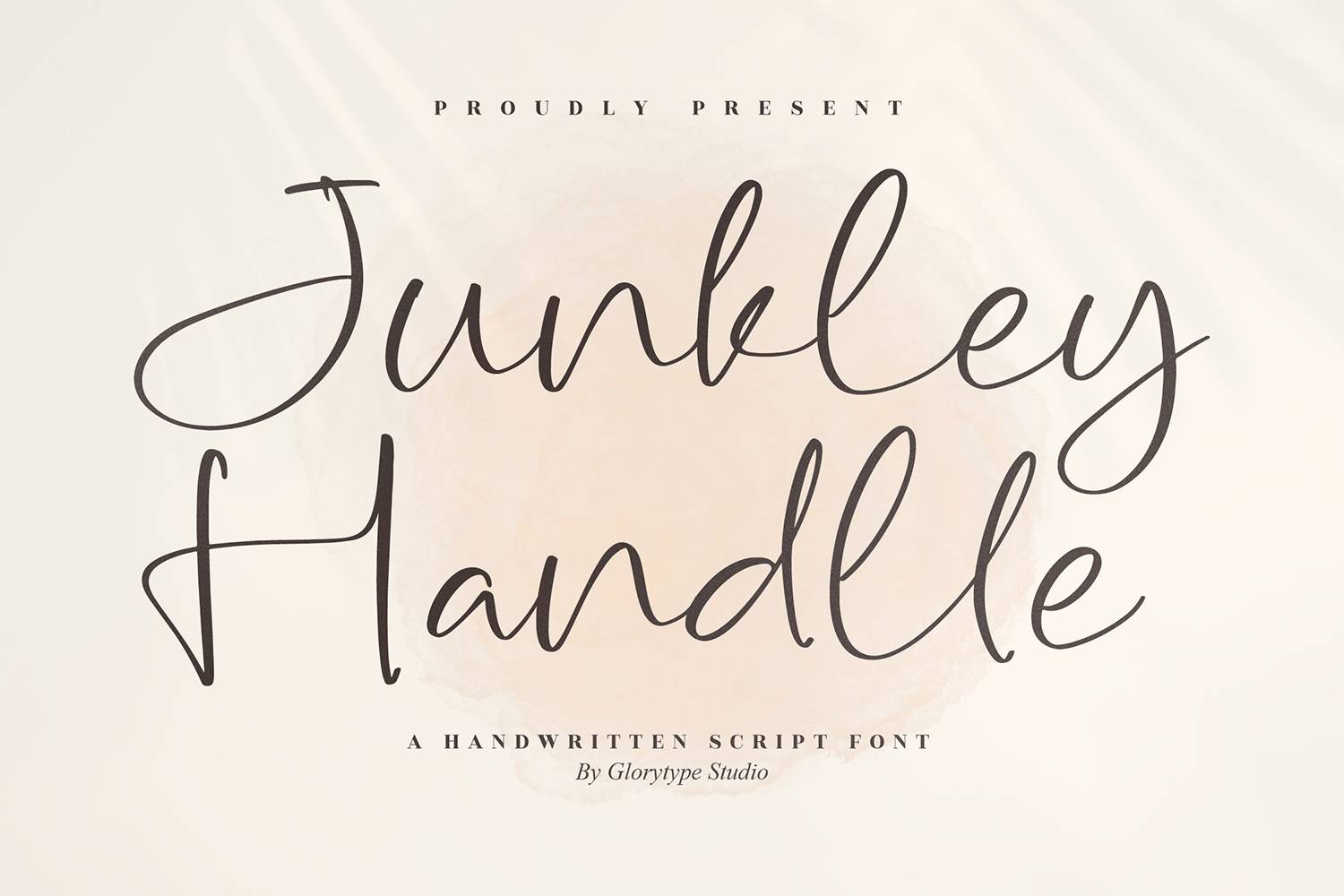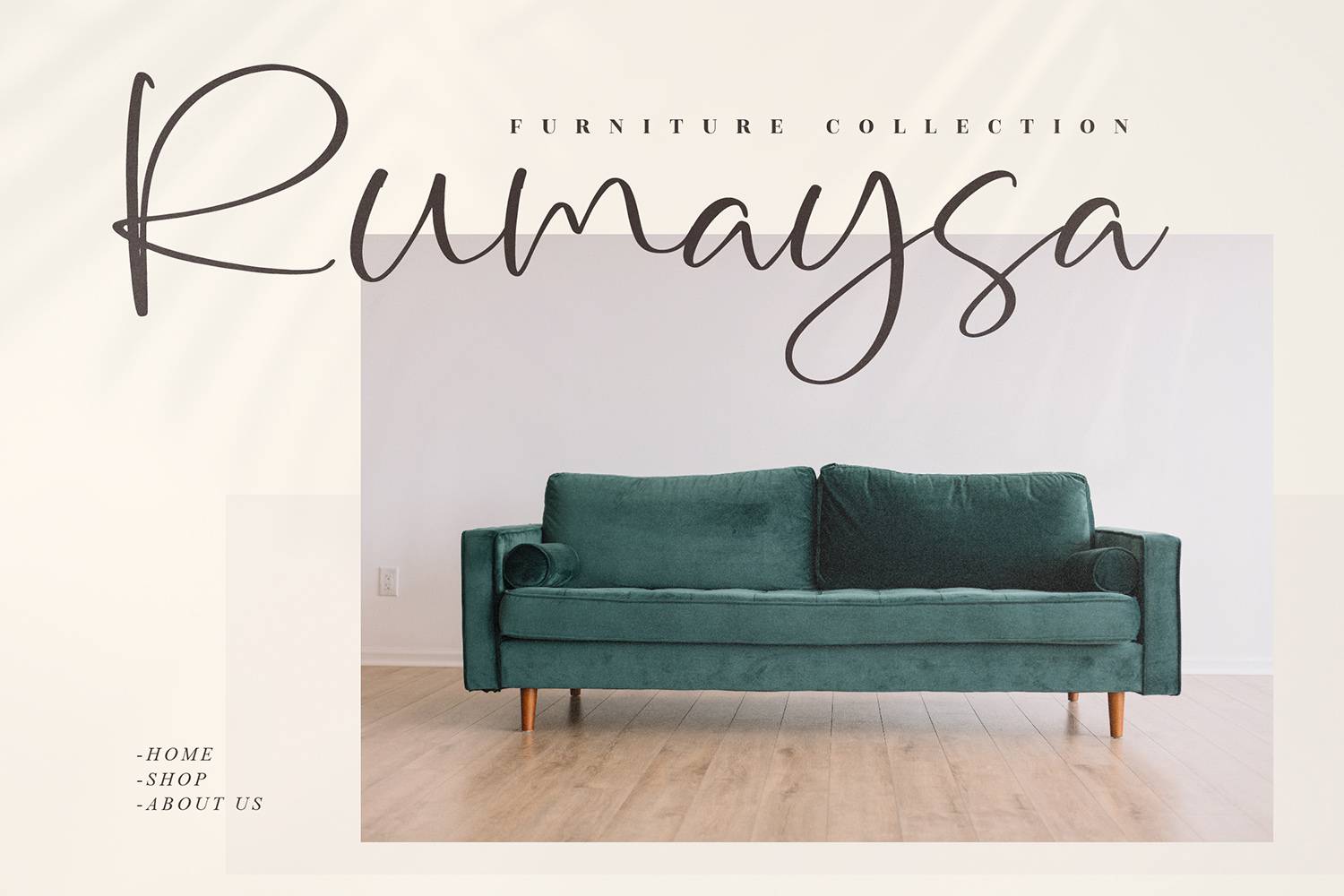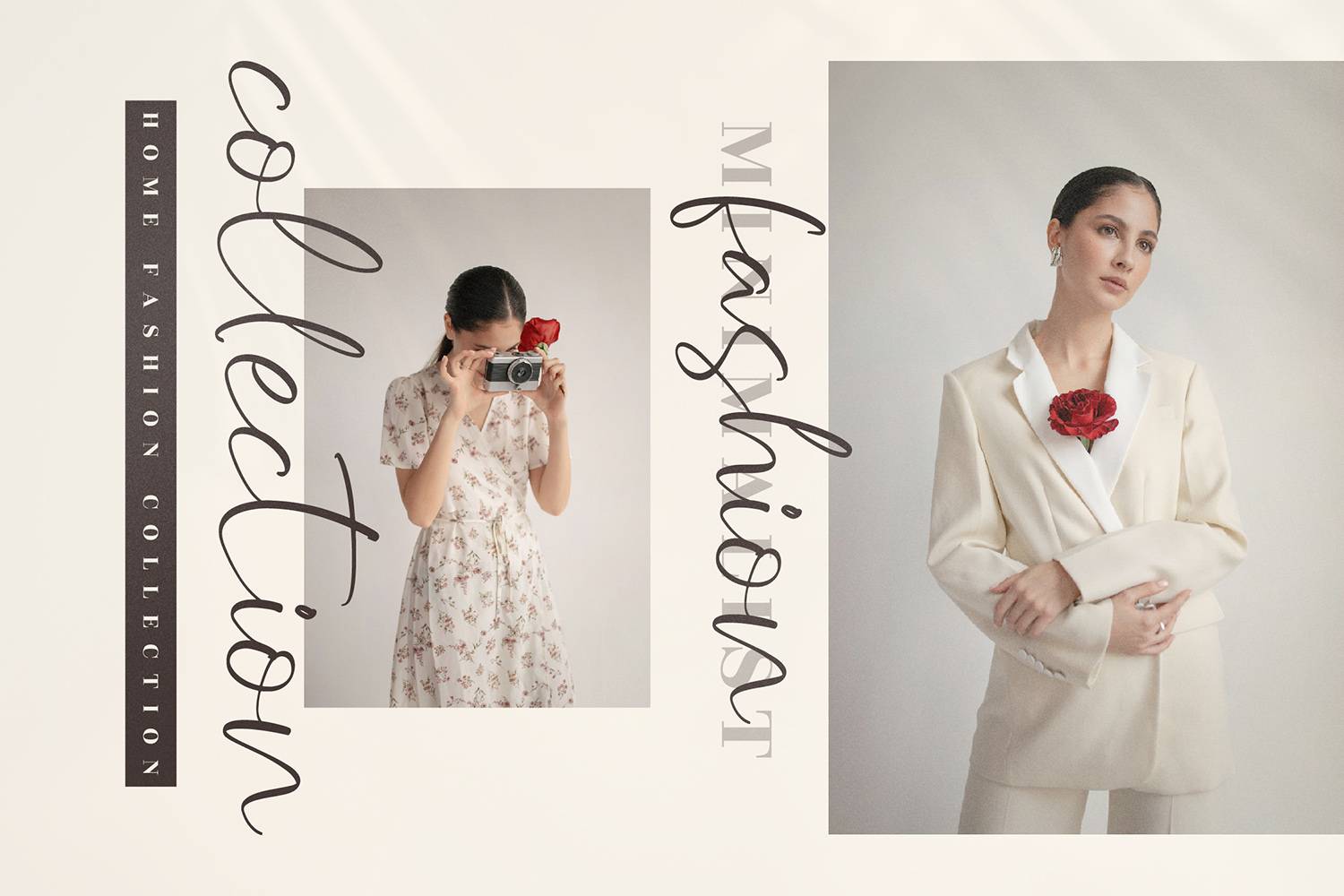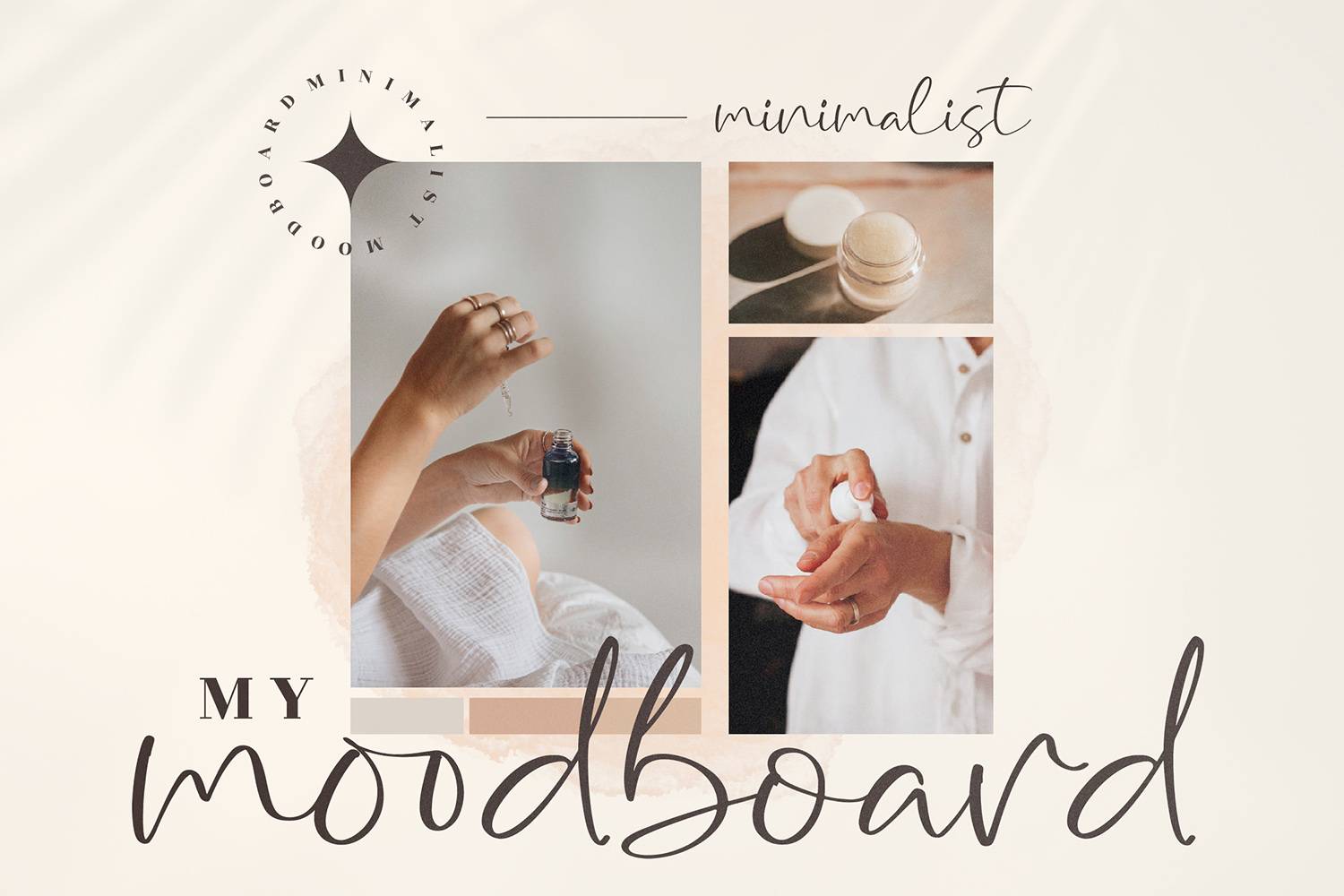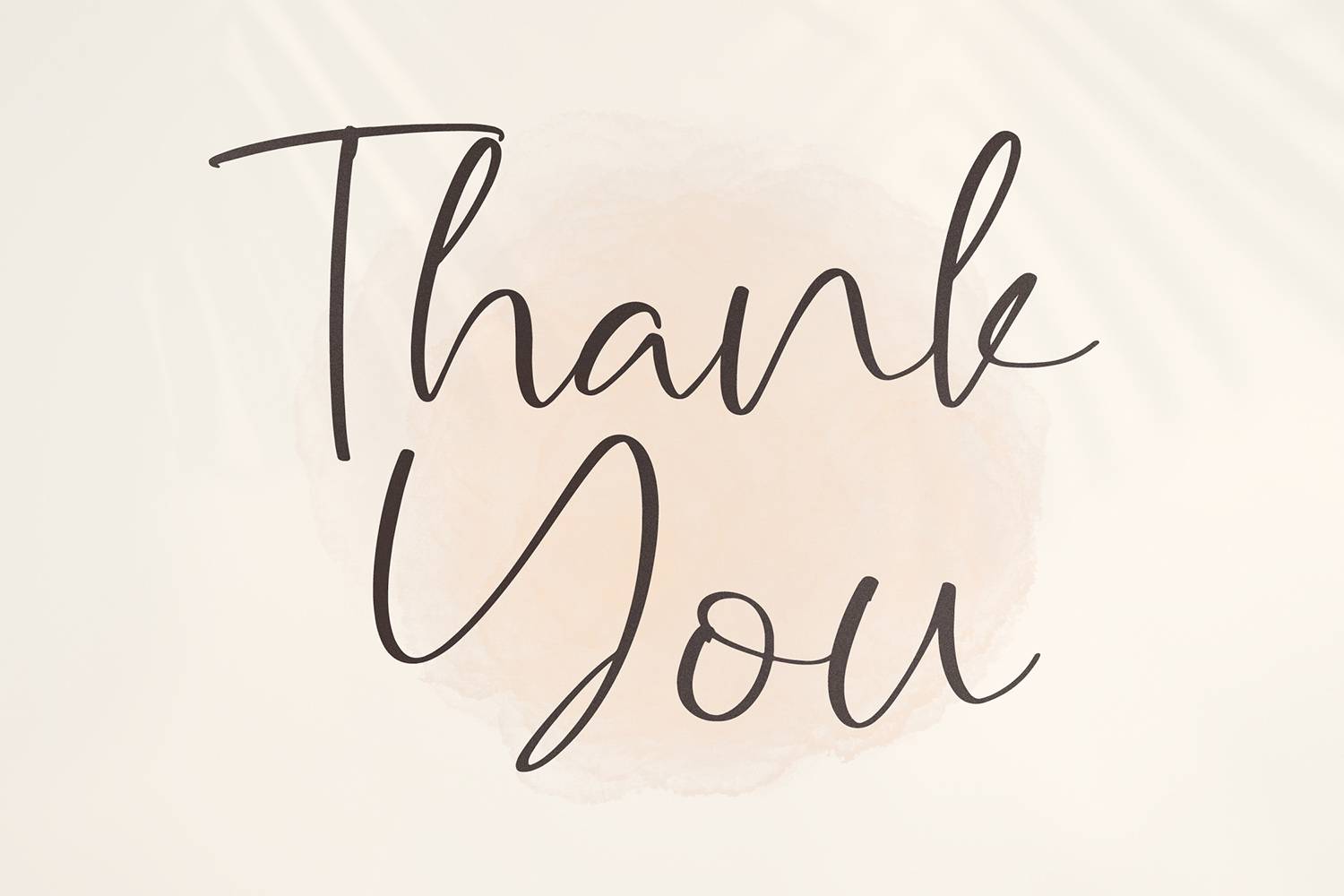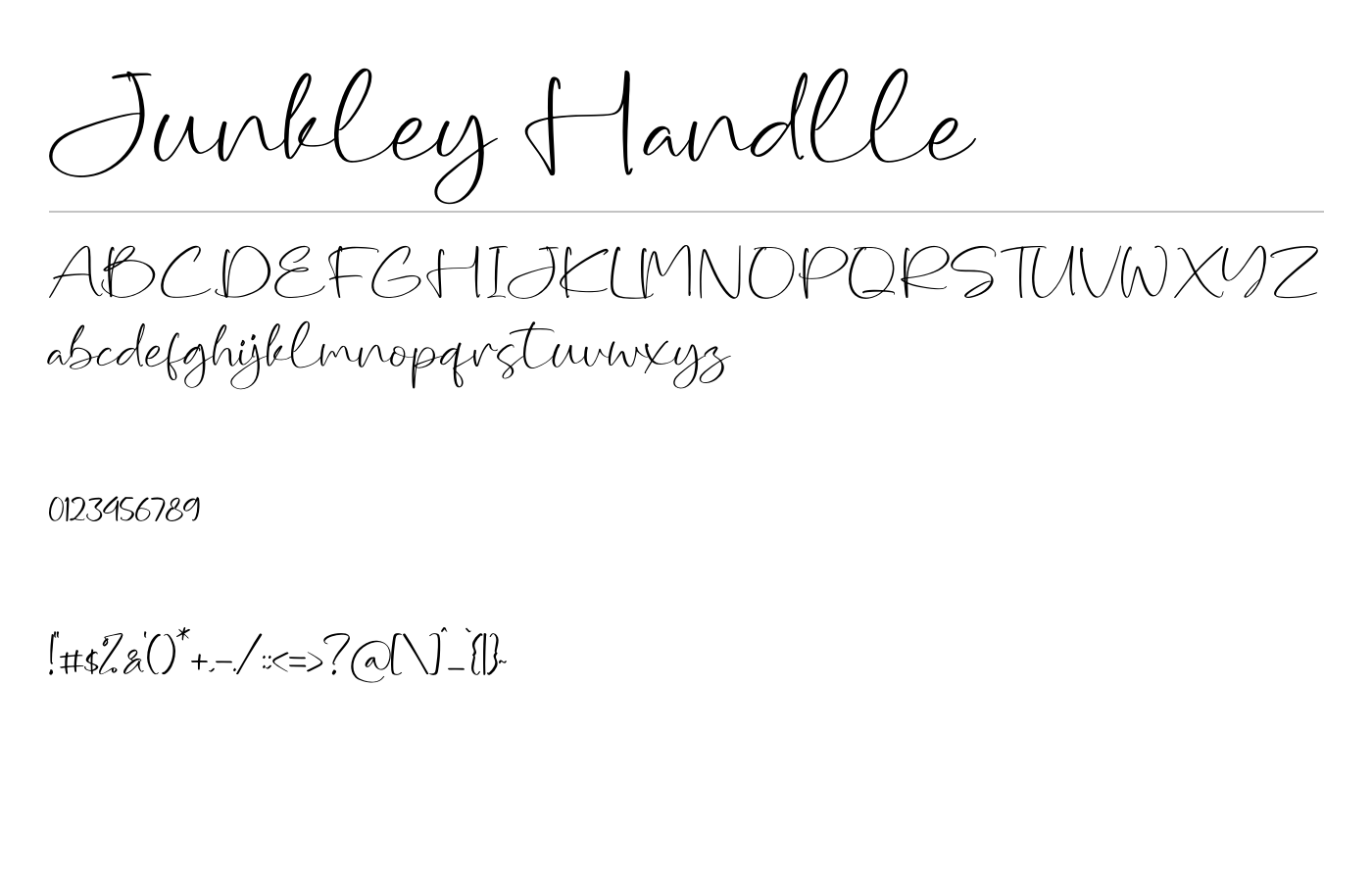
Junkley Handlle is a delicate, handwritten script font featuring thin strokes and elegant, flowing letterforms that evoke a natural, personal touch. Its light weight and airy spacing make it perfect for invitations, branding, and expressive headlines where a friendly yet refined feel is desired. This font works well for creative projects that benefit from a stylish, approachable handwriting style.
Junkley Handlle Font
About Junkley Handlle Font